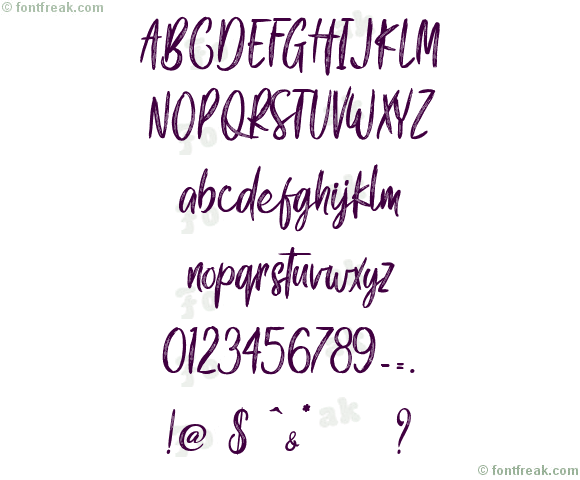
Gook Kitt - Personal Use
Gook Kitt - Personal Use is a charming handwritten font designed by Suthi Srisopha, falling into the script category. This font exudes a playful and casual vibe, making it ideal for projects that require a personal touch. The visual characteristics of Gook Kitt include a medium stroke weight with a slight contrast that adds a whimsical flair. Its slightly irregular letterforms enhance its hand-crafted feel, while the generous spacing between characters contributes to its readability and aesthetic appeal.
This font is particularly well-suited for a variety of creative applications. It shines in wedding invitations, where its elegant yet approachable style can convey warmth and intimacy. Additionally, Gook Kitt works beautifully for social media graphics, helping content creators capture attention with its friendly appearance. Restaurant menus can also benefit from this font, providing a unique and inviting element that reflects a brand's personality. Moreover, it is perfect for crafting personalized greeting cards or posters that need a touch of creativity and informality.
Target audiences for Gook Kitt include graphic designers looking for distinctive typefaces, small business owners aiming to create a memorable brand identity, and content creators seeking to engage their audiences with visually appealing text.
What sets the Gook Kitt - Personal Use font apart is its ability to blend creativity with accessibility. The font's unique handwritten style can add an authentic and relatable touch to any project, making it a valuable addition to your design toolkit. With the option for Gook Kitt - Personal Use font free download, you can easily incorporate this delightful typeface into your next project, ensuring it stands out and resonates with your audience.